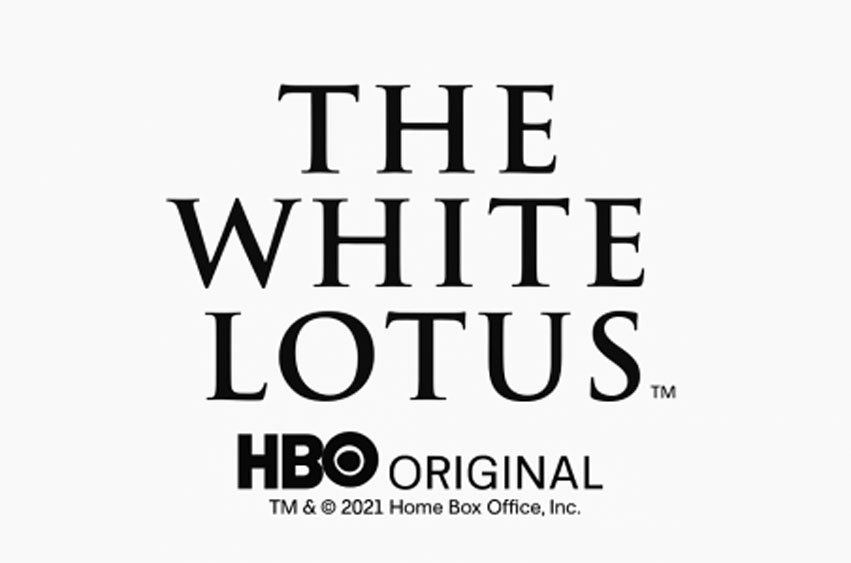
The White Lotus Font is a dark comedy-drama about wealthy guests and hotel staff at a luxury resort. Each season reveals secrets and tensions in a new exotic location.
The font used in The White Lotus logo is Trajan Pro Bold designed by Carol Twombly and published by Adobe. Inspired by the letterforms of ancient Roman inscriptions, particularly those found on the Trajan Column, this serif typeface conveys a sense of elegance, tradition, and timeless authority—making it a fitting choice for the show’s sophisticated and dramatic tone.